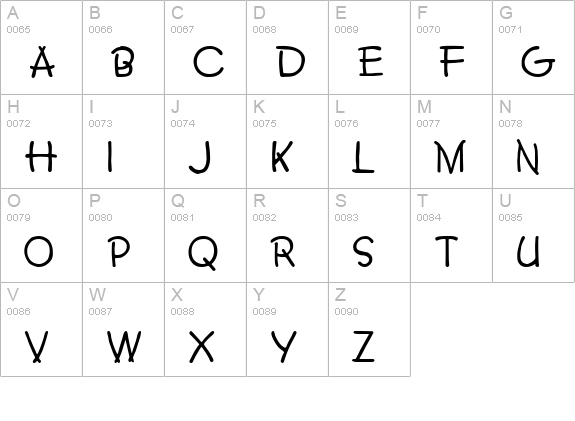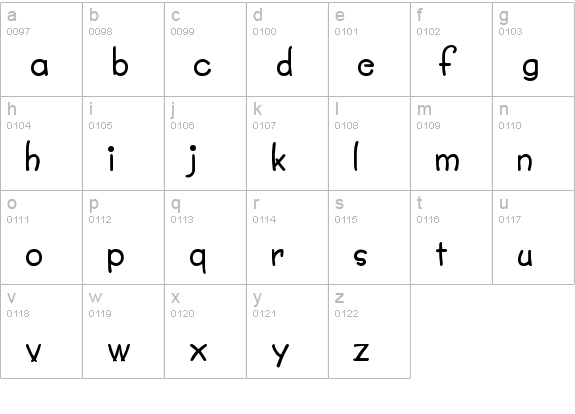
Crayon Normal is the standard, neutral variant in the Crayon typeface family \xE2\x80\x94 well suited to general body text, paragraphs, and standard typographic work.
Crayon Normal font is a charming and playful typeface inspired by the whimsical strokes of a child's crayon drawing. Its quirky and hand-drawn appearance adds a touch of creativity and warmth to any design project. Perfect for children's books, posters, invitations, and more, Crayon Normal font brings a sense of fun and nostalgia to your work. The best part? This delightful font is available for free download at FontsMarket.com. Embrace the creativity and joy of Crayon Normal font in your next project and let your imagination run wild!